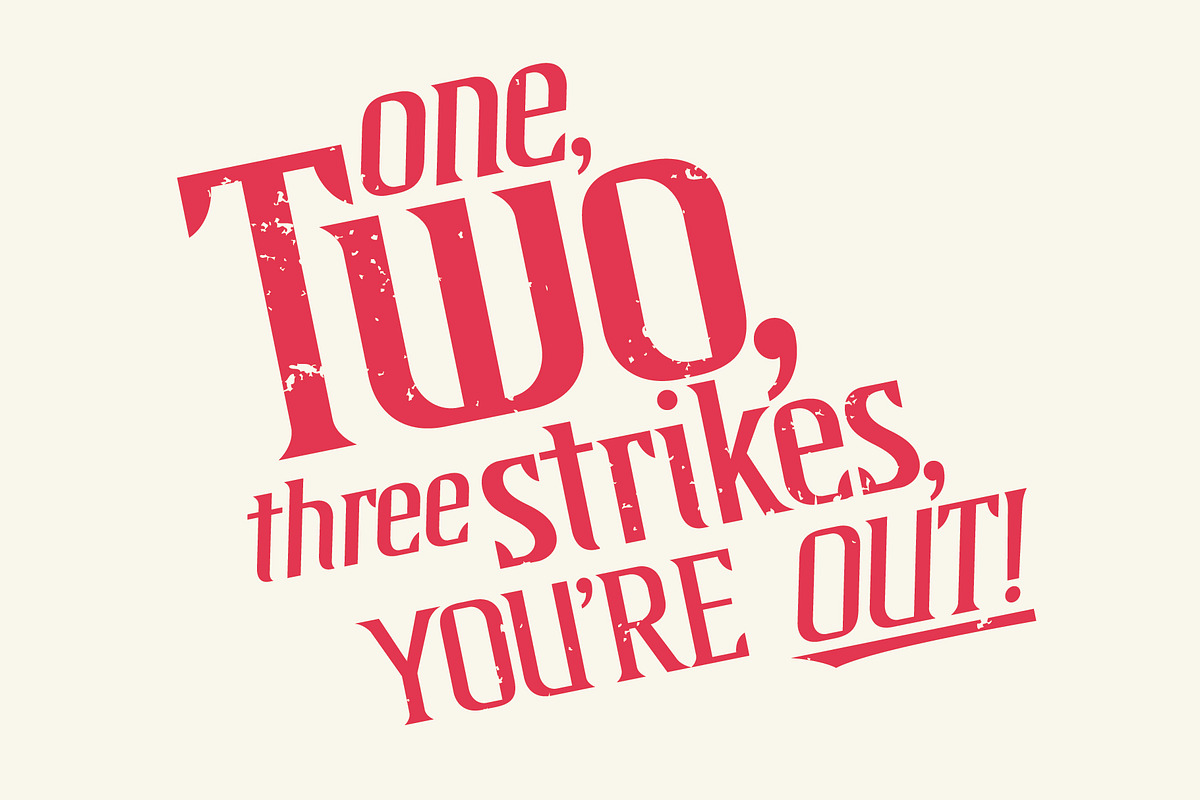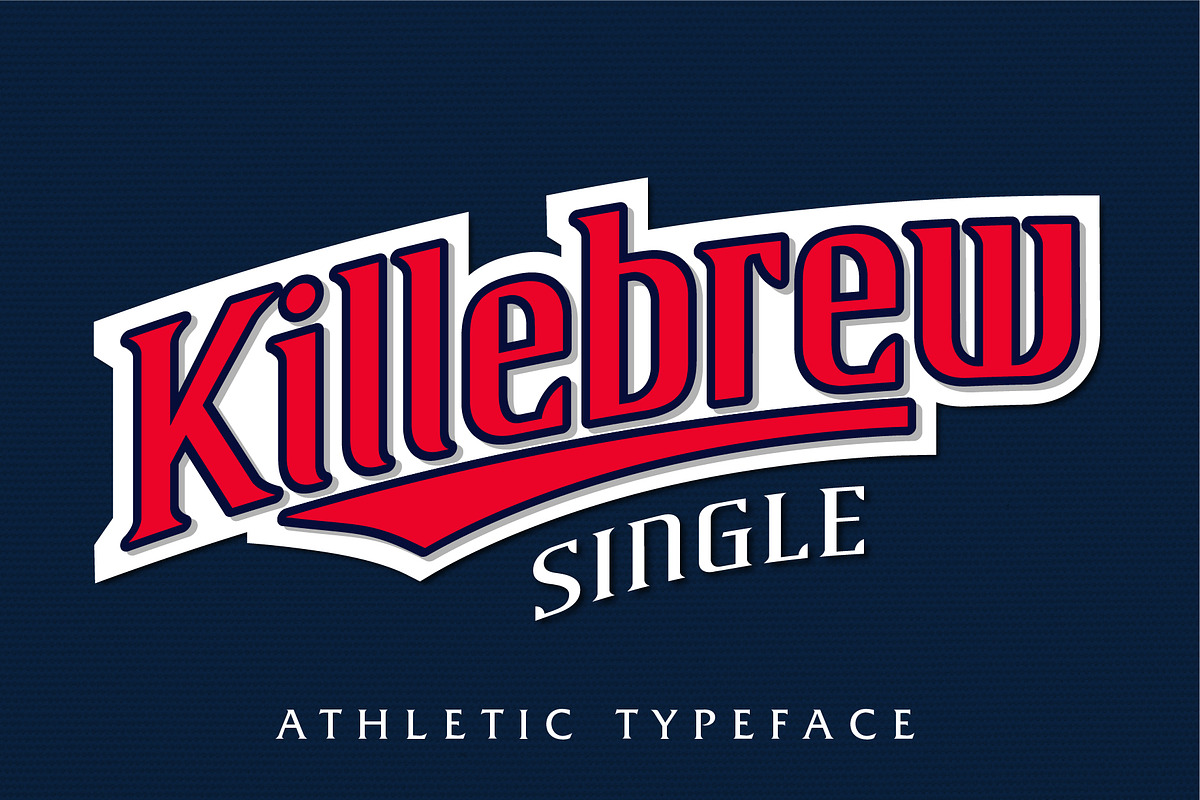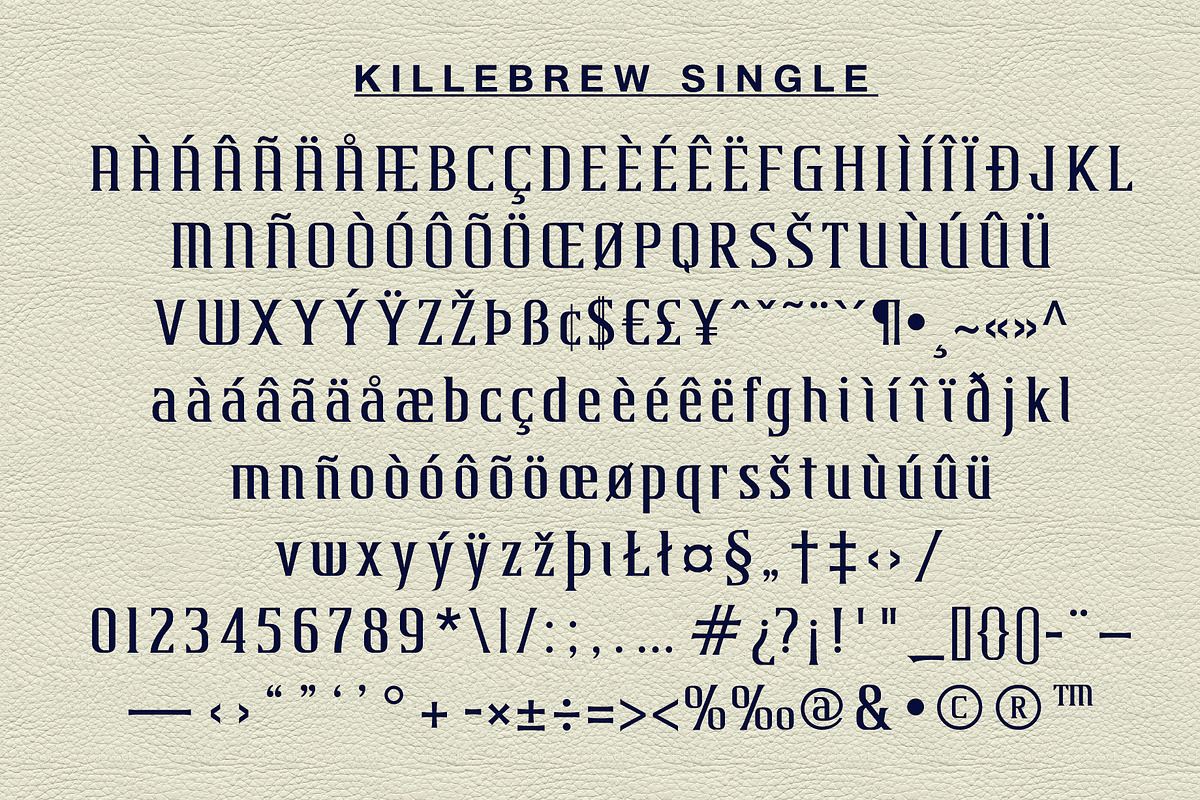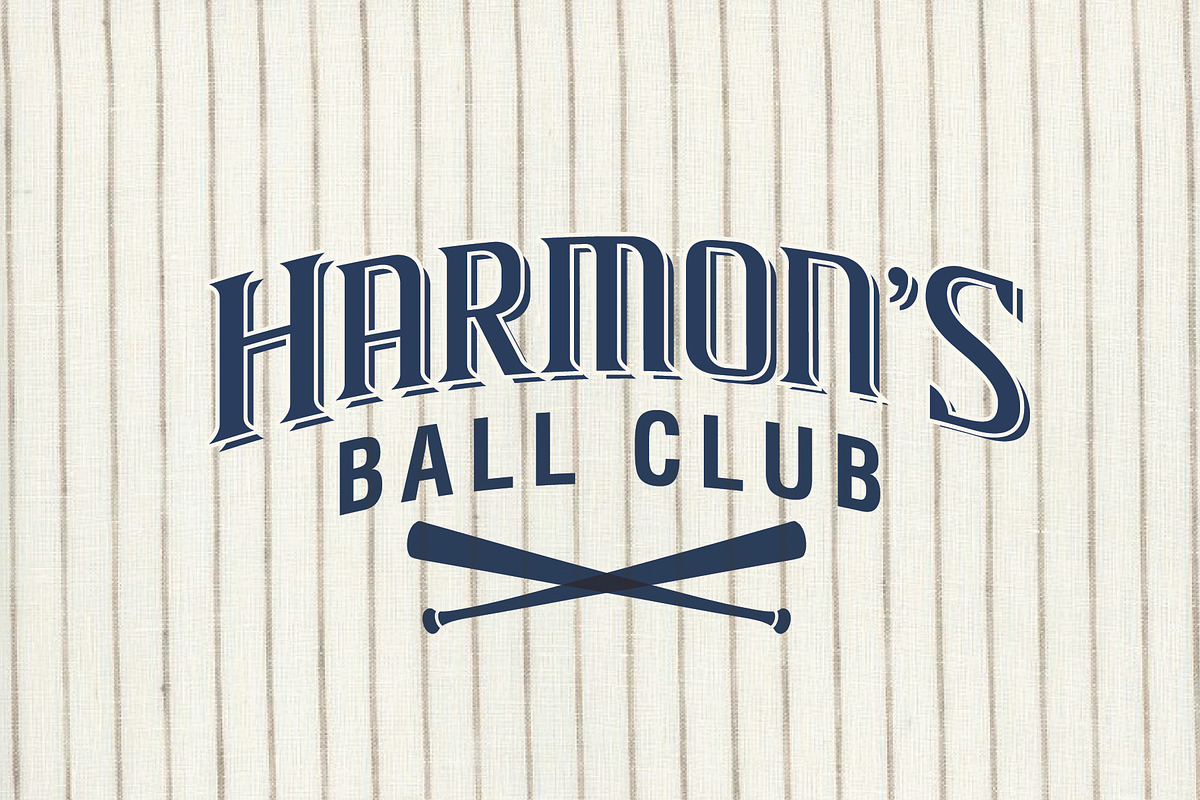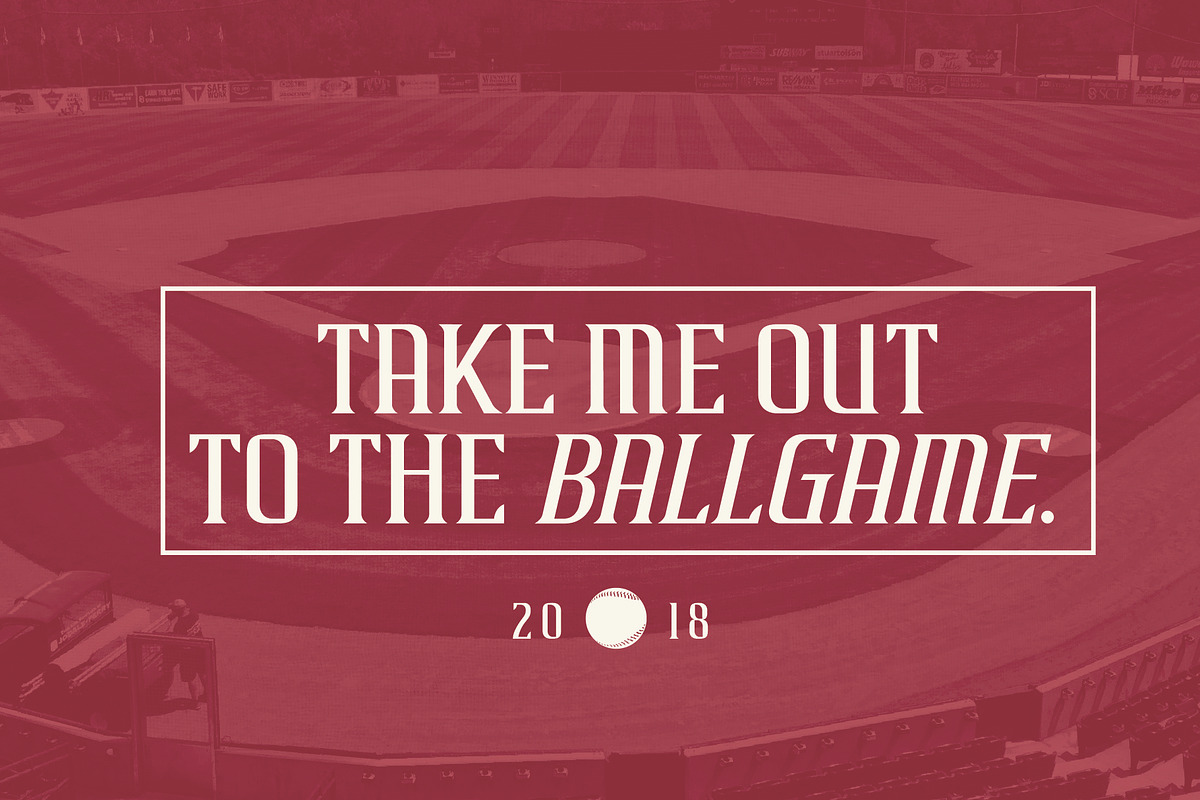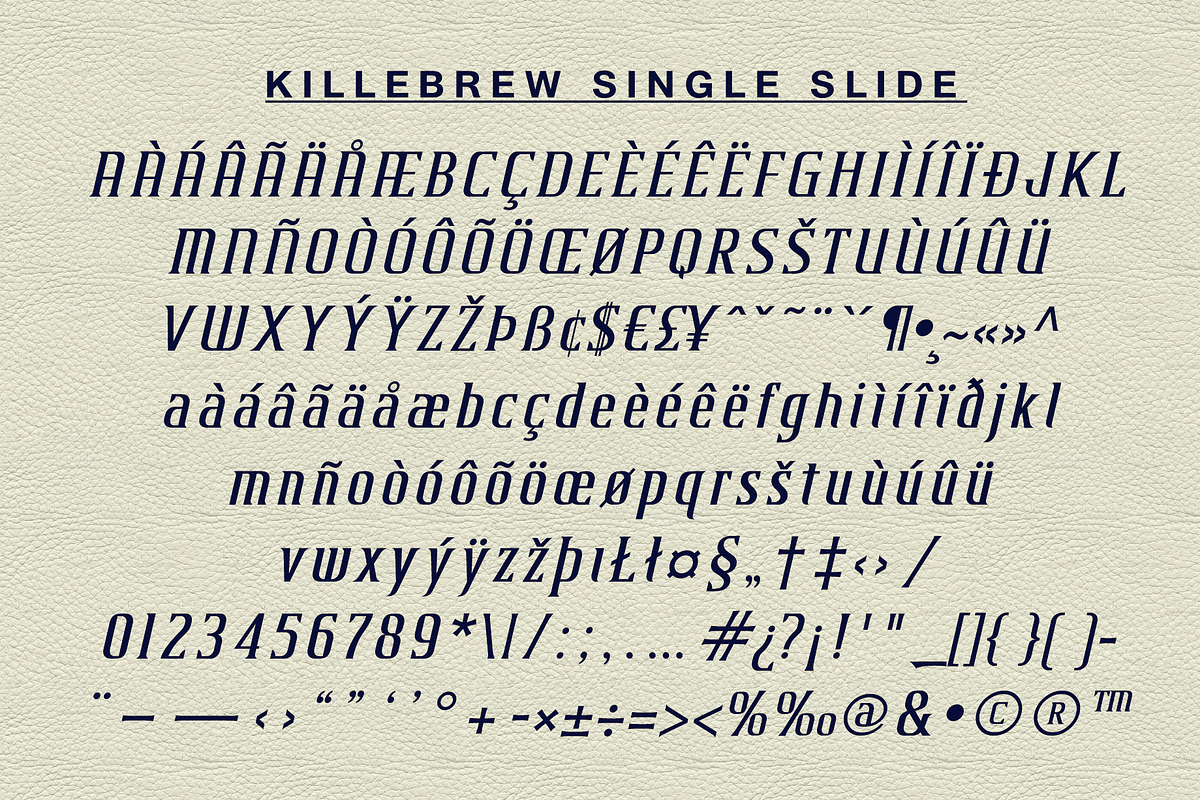
Killebrew Single | Athletic Typeface
K I L L E B R E W is a baseball-inspired display typeface
For the devoted fans of baseball in the Midwest, Killebrew provides the look and feel of an All-American baseball club.
Two type styles – Single (regular) and Single Slide (italic)
Upper (A-Z) and lower case (a-z) characters
Standard punctuation and glyphs
Killebrew has a subtle blackletter feel that reflects some of the German heritage representative in the area. Use it for a classic, vintage baseball feel or something very Midwestern.